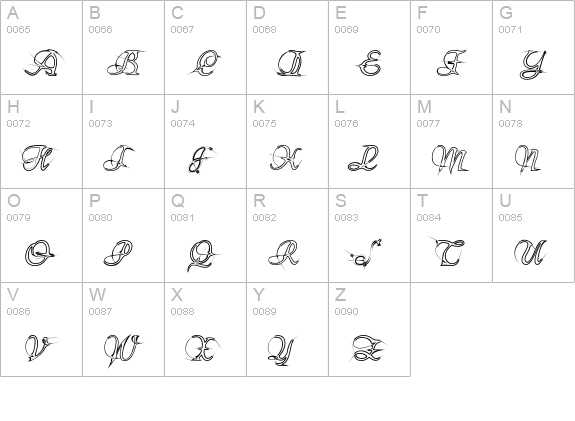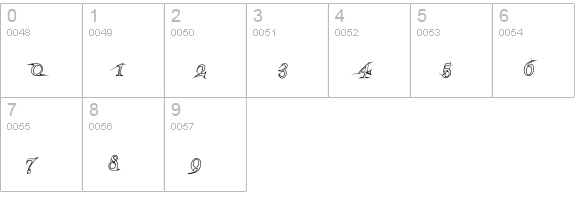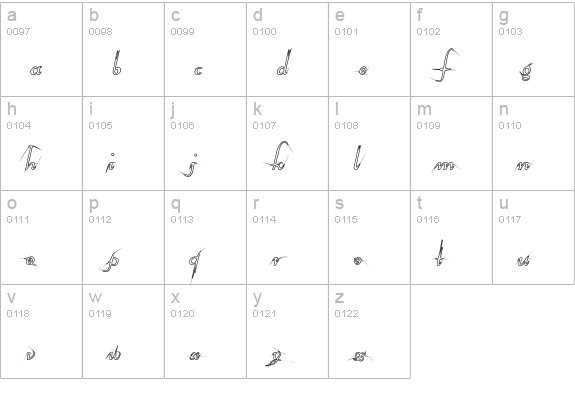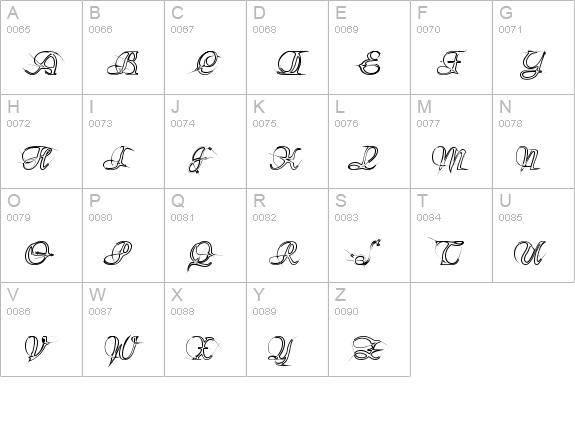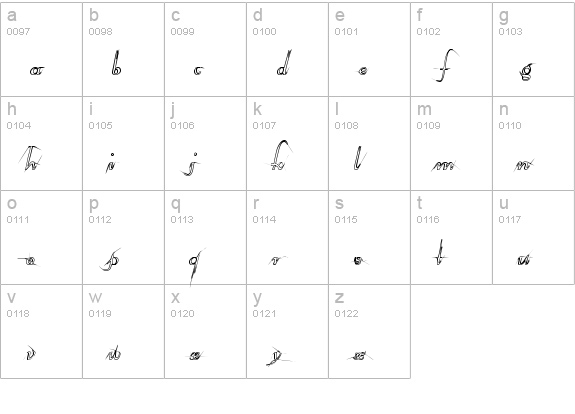
AraneaEF-Outline Font Details
AraneaEF-Outline font is a sleek and modern typeface that exudes elegance and sophistication. With its clean lines and stylish appearance, this font is perfect for adding a touch of contemporary flair to any design project. The outline style of AraneaEF-Outline font gives it a unique and eye-catching look that is sure to make your text stand out. Best of all, AraneaEF-Outline font is available for free download at FontsMarket.com. Whether you're working on a professional project or simply looking to enhance your personal creations, this font is a fantastic choice. Download AraneaEF-Outline font today and unleash your creativity with this stunning typeface.